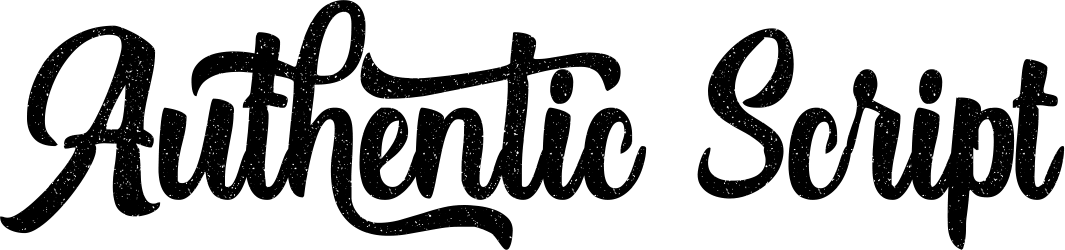
Authentic Script Font
Sometimes projects like creating posters, flyers, logos, and book covers require a formal and creative style and that is exactly when you need a calligraphy font. With that said we suggest Authentic Script which could be a perfect choice for you if you just give it a try.
This font comes with a great collection of characters that contains both the uppercase and lowercase of the alphabet, the numbers, and the punctuation marks.